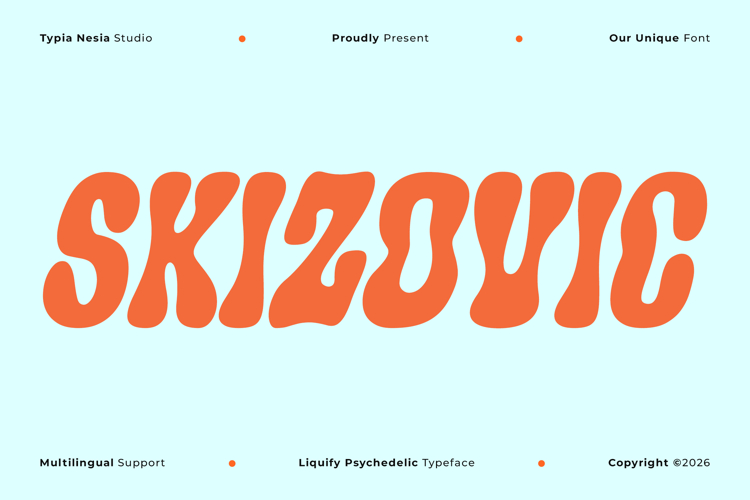
Skizovic - Psychedelic Liquify Retro Font
Skizovic - Psychedelic Liquify Retro Font - Groovy Logo Display Font
Skizovic is a psychedelic liquify retro font inspired by groovy 70s aesthetics, fluid shapes, and funky visual energy. Designed with smooth liquid curves and playful organic forms, this typeface delivers a bold psychedelic and retro vibe that stands out in any design. Its unique groovy style makes it perfect for logo design, music posters, festival artwork, café branding, K-pop visuals, retro packaging, and creative branding projects that require expressive and flowing letterforms with dynamic visual rhythm. This font captures the spirit of vintage psychedelic culture while still feeling modern and fresh.
Add a bold psychedelic groove to your designs with Skizovic and make your visuals stand out with retro liquid energy.
Skizovic